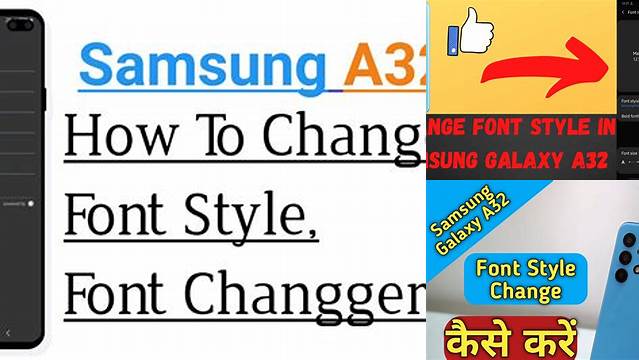
Samsung A32: Free Font Style Change Guide
Hey guys! Want to jazz up your Samsung A32 with a fresh new font? You're in the right place! Changing the font style on your Samsung A32 is a super easy way to personalize your phone and make it truly yours. And the best part? You can do it for free! Let's dive into how you can switch up those fonts and give your phone a brand-new look.
1. Understanding Font Options on Samsung A32
Let's get to know the font landscape on your Samsung A32. Your phone comes with a set of pre-installed fonts, but the real fun starts when you explore other options. Understanding what's available will help you make the best choice for your style. Did you know that changing the font can actually improve readability for some people? It's all about finding what works best for you!
When we talk about font options on the Samsung A32, we're not just referring to the pre-installed fonts. The Android operating system, combined with Samsung's One UI, offers various avenues for customization. First, there are the default fonts, such as Roboto, which come standard on many Android devices. These fonts are designed to be clean and legible, making them suitable for a wide range of users. However, if you're looking for something with more personality, you'll be glad to know that Samsung provides additional fonts that you can choose from within the settings menu.
Beyond the pre-installed and Samsung-provided fonts, there's a whole world of font options available through the Google Play Store. Many apps offer font packs that you can download and install, giving you access to hundreds, if not thousands, of different font styles. These fonts range from elegant scripts to bold, modern designs, allowing you to truly customize the look and feel of your device. However, it's important to note that not all font apps are created equal. Some may contain malware or other harmful software, so it's crucial to download fonts only from reputable sources.
Before diving into the process of changing your font, it's also worth considering how different fonts can affect the overall user experience. For example, a decorative font might look great in certain contexts, but it could be difficult to read in long passages of text. Similarly, a font that's too thin or too small can strain your eyes, especially if you spend a lot of time reading on your phone. Therefore, it's essential to choose a font that not only looks good but also enhances readability and usability. By carefully considering these factors, you can ensure that your font choice contributes positively to your overall mobile experience.
2. Step-by-Step Guide to Changing Fonts
Ready to make a change? Here’s a super easy, step-by-step guide to changing the font on your Samsung A32: changing the font on your Samsung A32 is a piece of cake, and I'm gonna guide you through it. Follow these steps and you'll be rocking a fresh font in no time! This is a quick process that will immediately give your device a new look.
Step 5: Adjusting Font Size In addition to changing the font style, you can also adjust the font size to make it easier to read. Use the slider at the bottom of the screen to increase or decrease the font size until it's comfortable for you.
Step 6: Applying the Changes Once you're happy with your font style and size, simply exit the settings menu. The changes will be applied automatically, and you'll see your new font throughout your phone's interface.
3. Using Samsung Themes for Font Changes
Samsung Themes can totally change the look of your A32, and that includes the font! It’s a fun way to experiment and find a whole new vibe for your phone. Many themes come with custom fonts that can really elevate your device's look. Samsung Themes is a great way to change a bunch of settings at once, including the font, wallpaper, and icon styles. If you want a completely different look for your phone, using a theme is a quick and easy way to do it.
Accessing the Galaxy Themes Store The Galaxy Themes Store is your gateway to a wide variety of themes, both free and paid. To access it, simply open the Themes app on your Samsung A32. If you can't find the app, you can also access the Themes Store through the settings menu. Just go to Settings > Themes.
Exploring Available Themes Once you're in the Galaxy Themes Store, you can browse through the available themes to find one that suits your style. Themes are categorized into different genres, such as cute, minimalist, and futuristic, so you can easily find something that catches your eye. Each theme comes with a preview that shows you how it will look on your phone, including the font style, wallpaper, and icon designs.
What does the future hold for mobile typography? Let's speculate!
So there you have it! Changing the font on your Samsung A32 is a fun and easy way to personalize your phone. Experiment with different fonts and sizes until you find a combination that you love. Happy customizing!